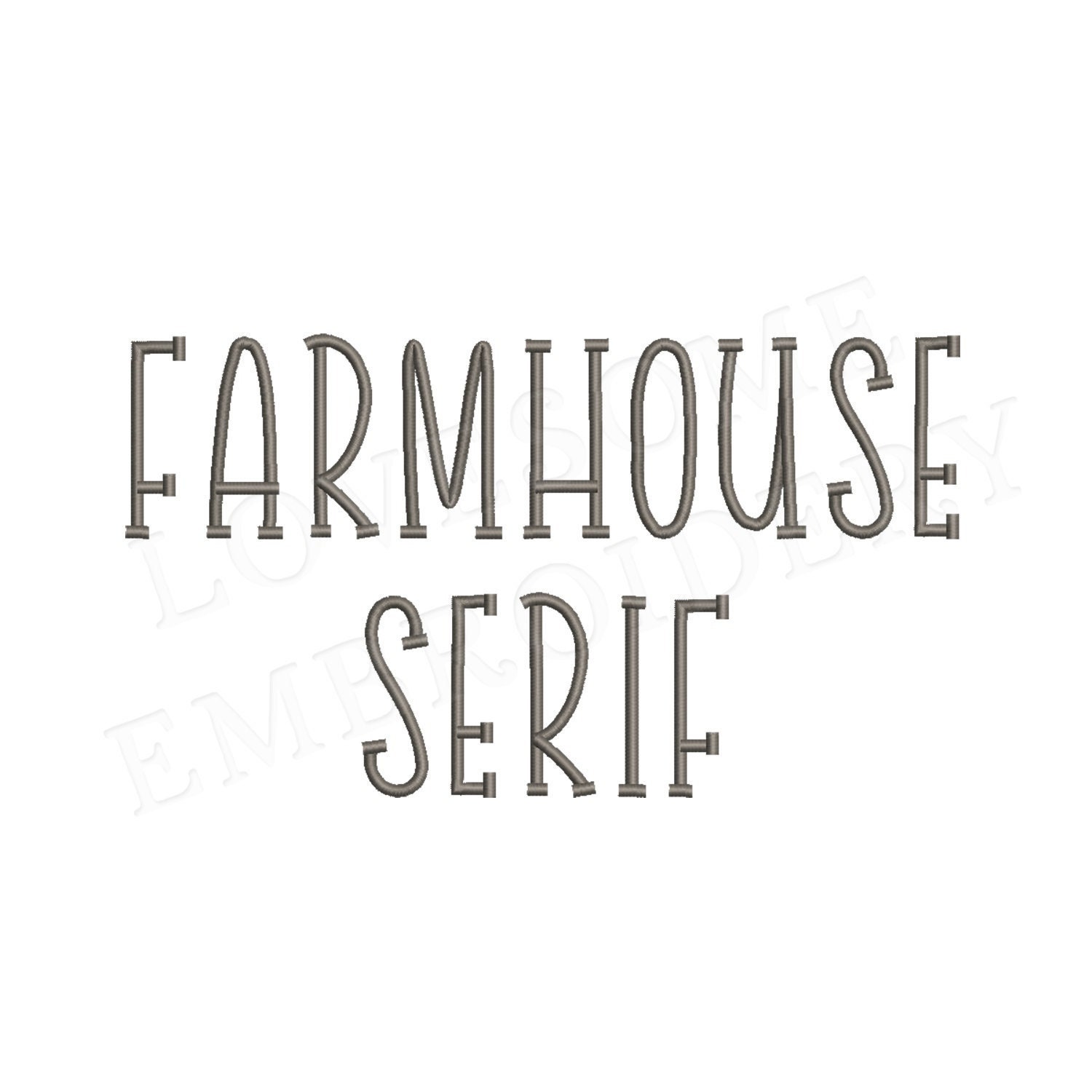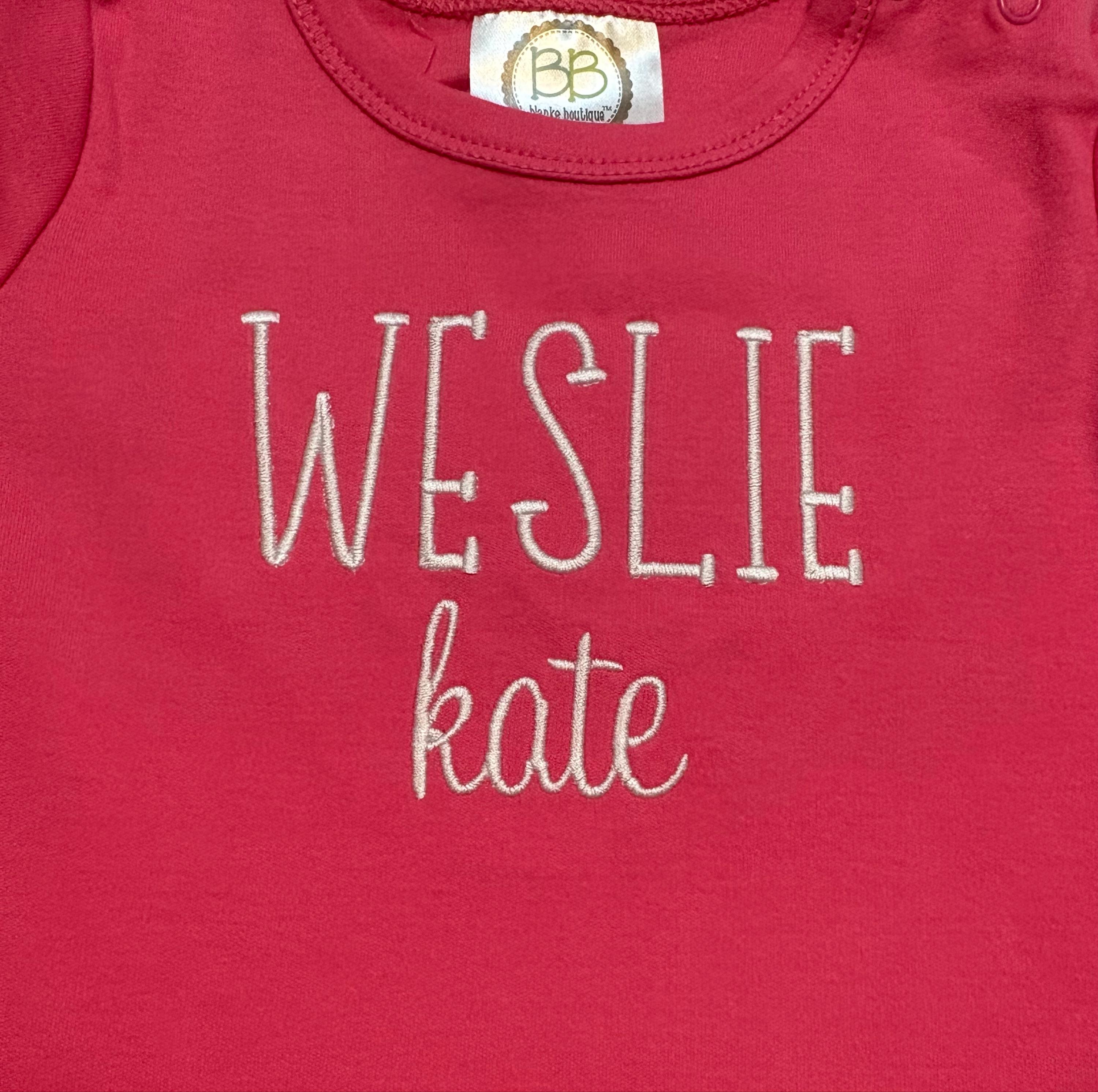
Stitched out beautifully and I will use again.
Stitched perfectly and was beautiful
Such a cute font, loved using this for my projects.
Perfect sew out for the project that I was working on.